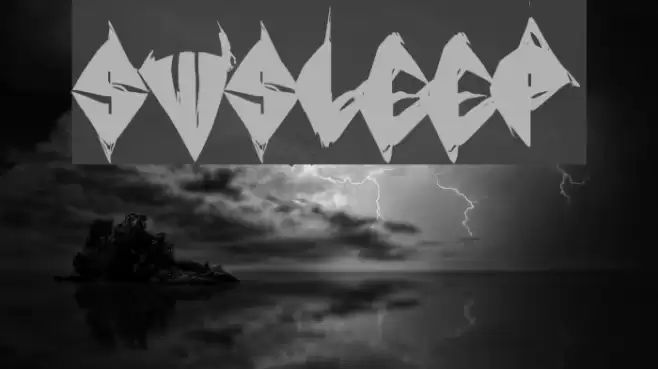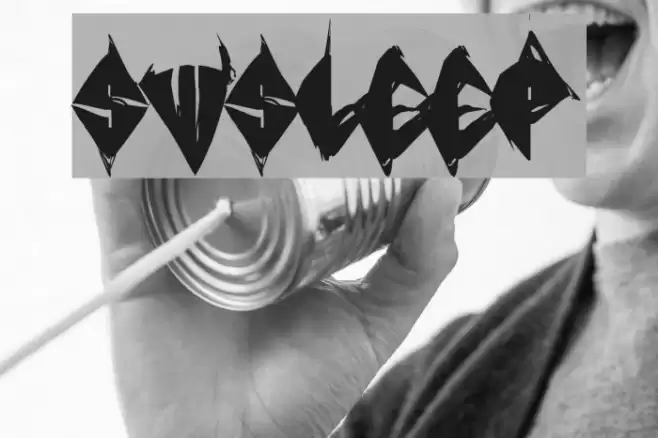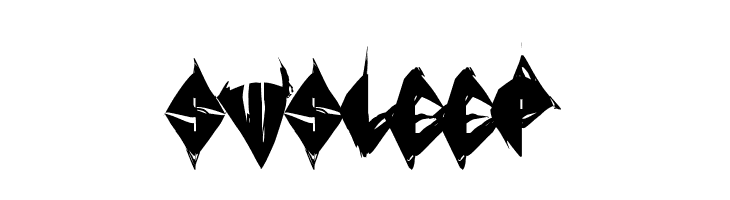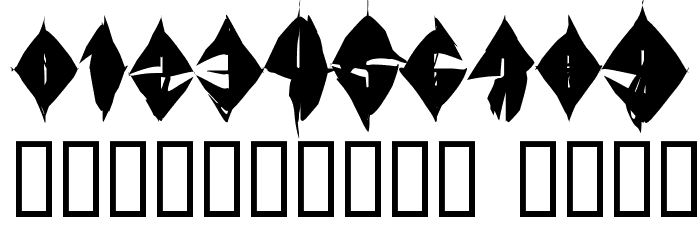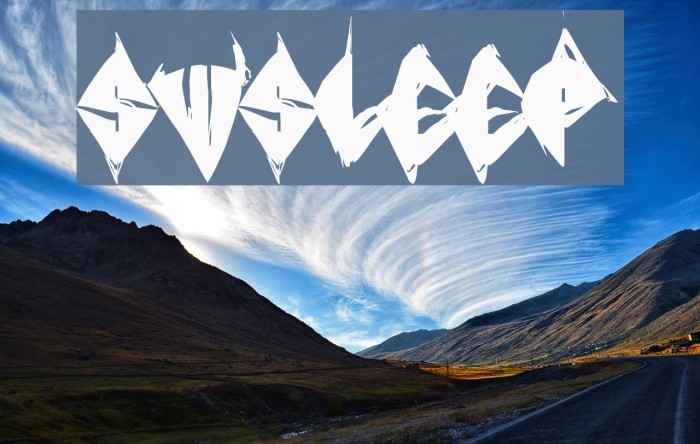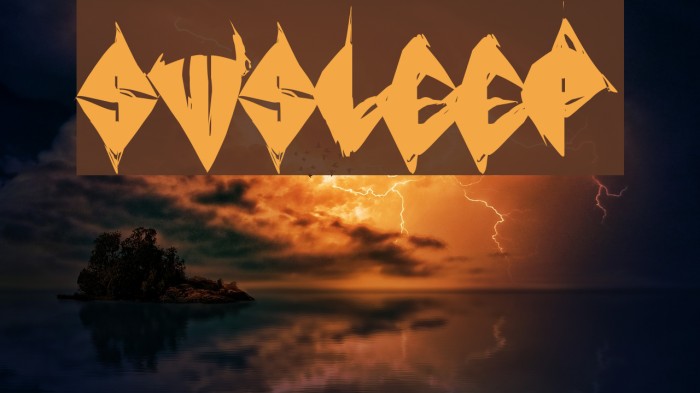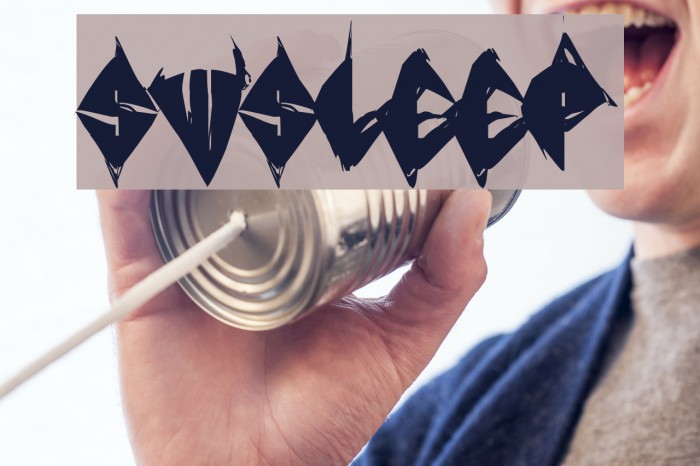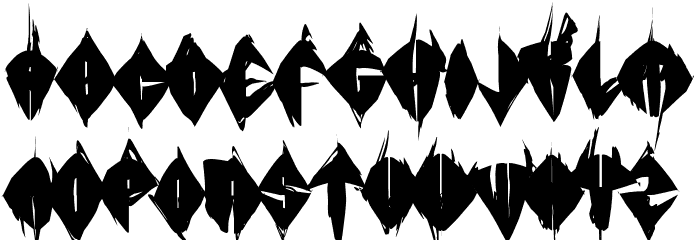
SWSleep Font
SWSleep Description
This font features a highly decorative and abstract design, characterized by sharp, angular shapes and a fragmented appearance. The letters are bold and striking, with a unique style that resembles shattered glass or jagged edges. The overall look is chaotic yet artistic, making it stand out in any design. The uppercase and lowercase letters maintain a consistent style, while the numbers and special characters follow the same fragmented theme. This font is not suitable for body text due to its complex design but can make a strong visual impact in headlines or artistic projects.
A bold, abstract font with sharp, angular shapes and a fragmented appearance from Futuristic fonts.
- Proposed Projects: Ideal for album covers, posters, or any project requiring a bold, artistic statement.
- Character Spacing: Tight
- Overall Style: Modern, Artistic
- Use Case: Headlines, Artistic projects